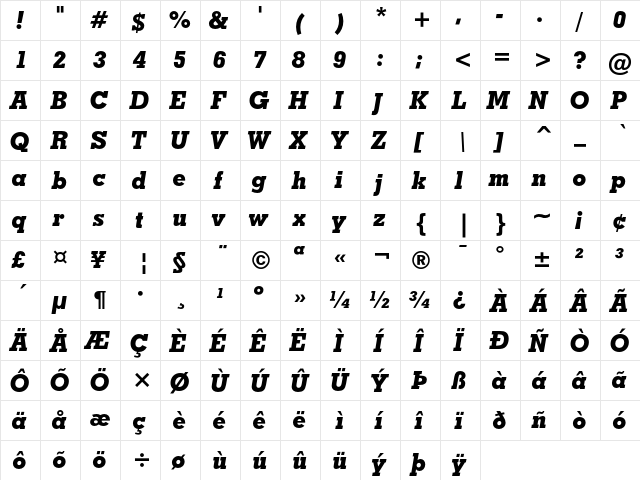
Geometric Slabserif 703 Extra Bold Italic Font Preview
Design Context for Geometric Slabserif 703 Typeface
Geometric Slabserif 703 combines the readability of serif typography with the visual weight of a slab construction, resulting in a typeface that feels both authoritative and approachable. The dynamic lean of this cut emphasises speed and emphasis in any layout. Its bold stroke weight gives it real presence on the page.
Suited to magazines, political campaign materials, bold packaging, and any setting where authority matters.
Pro Tip: Use Geometric Slabserif 703 for headlines and subheadings where its slab serifs can make an impression. It also holds up well in mid-size body copy thanks to its sturdy construction.